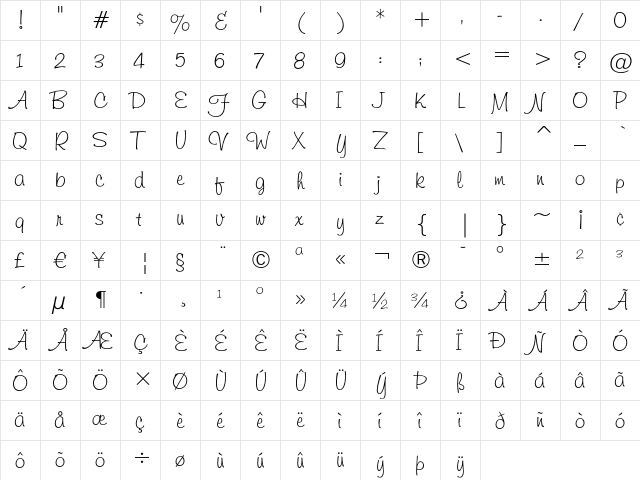
Freehand 591 Regular
Design Context for Freehand 591 Typeface
Freehand 591 brings a calligraphic fluidity to the page — its connecting strokes and expressive curves give it an unmistakably human quality.
Font Pairing: Combine Freehand 591 with a simple geometric sans for maximum contrast — the tension between flowing curves and clean structure is a classic typographic pairing.
Pro Tip: Pair Freehand 591 with a clean sans-serif for supporting text. The contrast between fluid script and geometric structure creates an elegant typographic hierarchy.